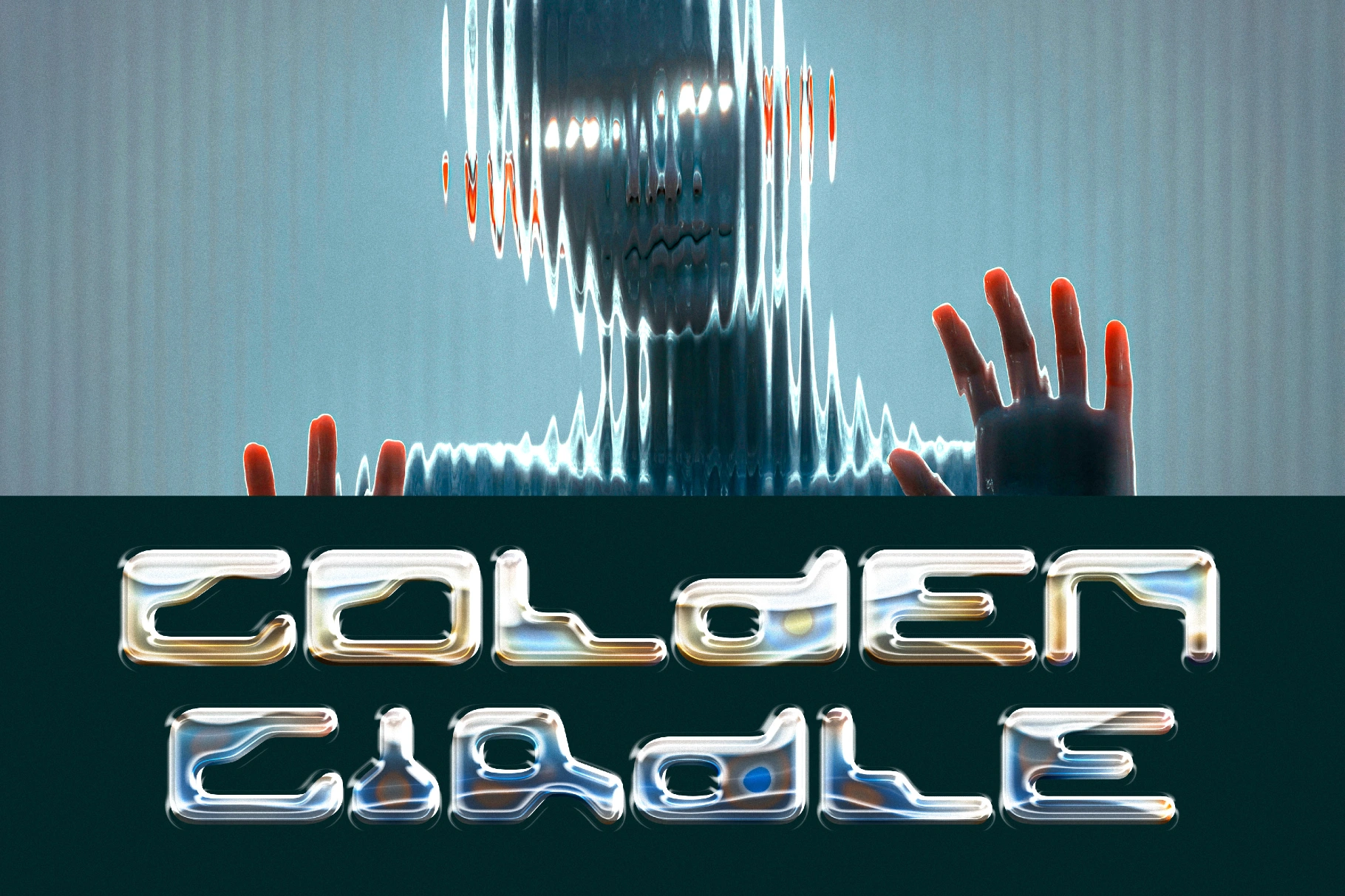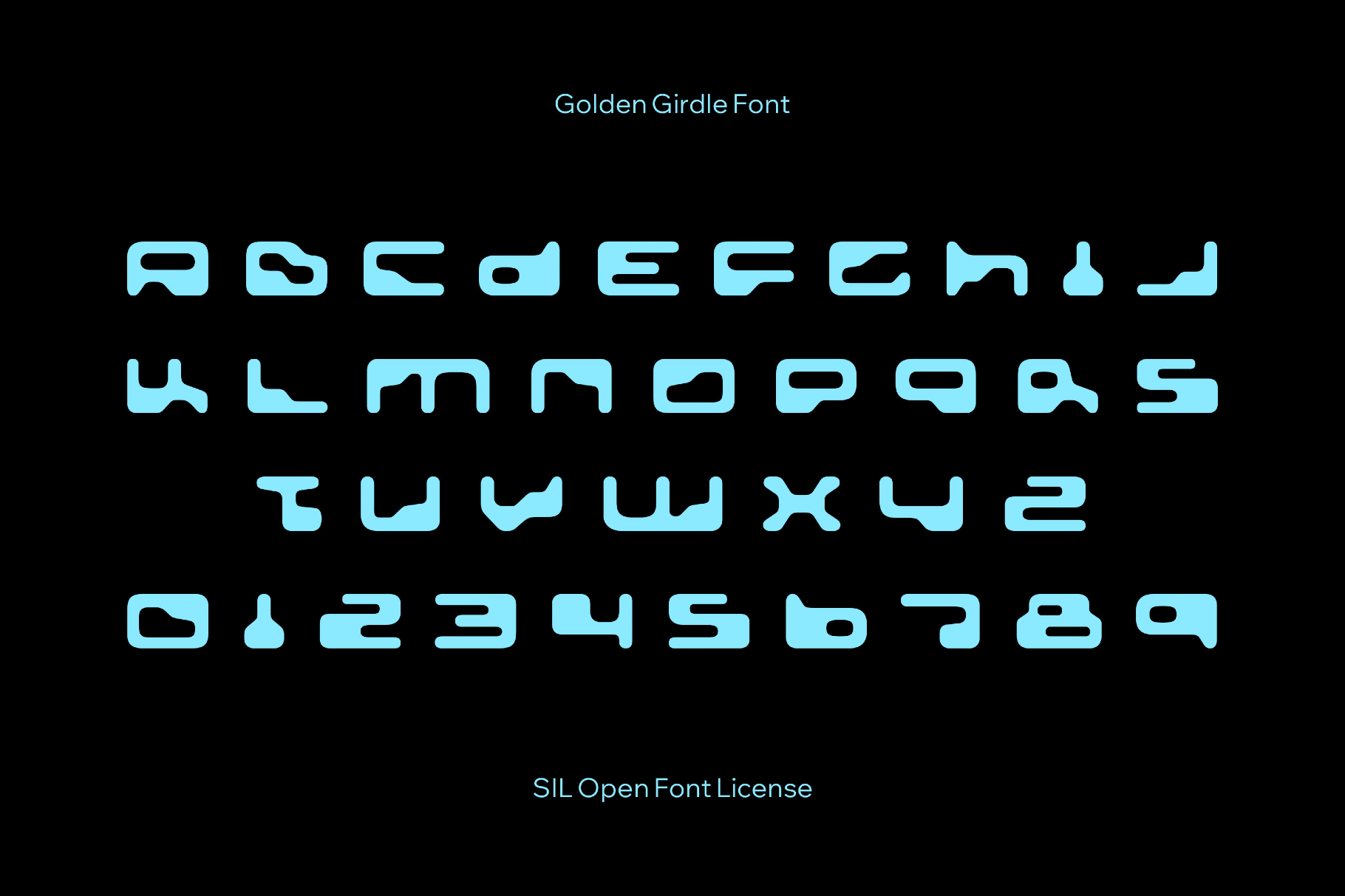
Golden Girdle Font
Broad low caps with strong repetition of Golden Girdle Font echo Victorian playbill lettering and Art Nouveau poster ornament. Heavy horizontal bars and squared curves lock text into dense sci-fi wordmarks. This typeface is ideal for theatrical posters, vintage-style branding, book covers, event invitations, packaging for boutique goods, editorial headlines, and logo lockups with a decorative signature.
• Only uppercase letters.